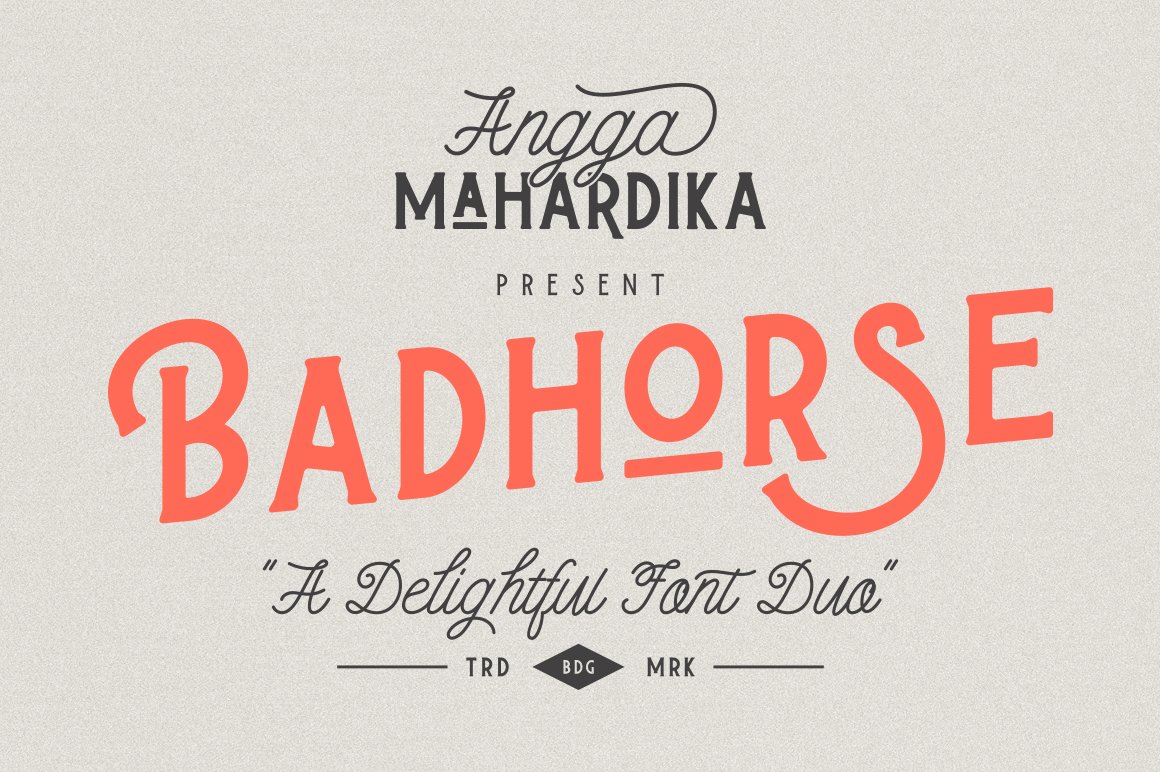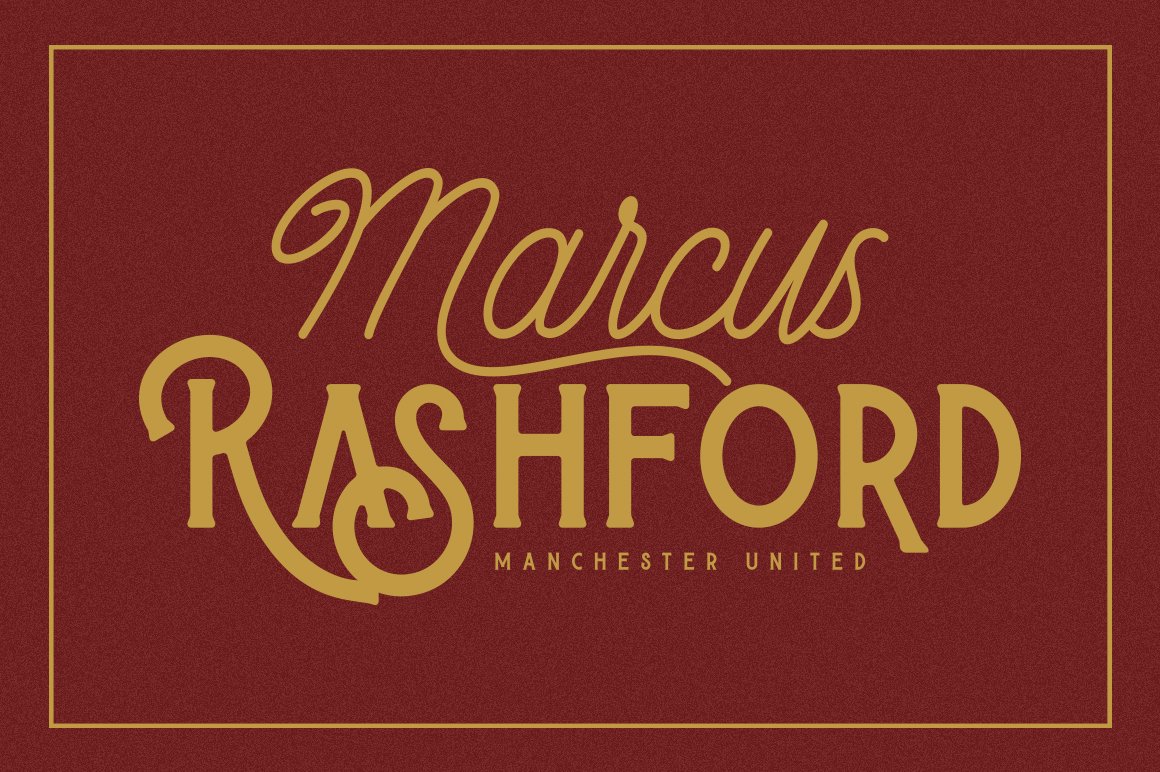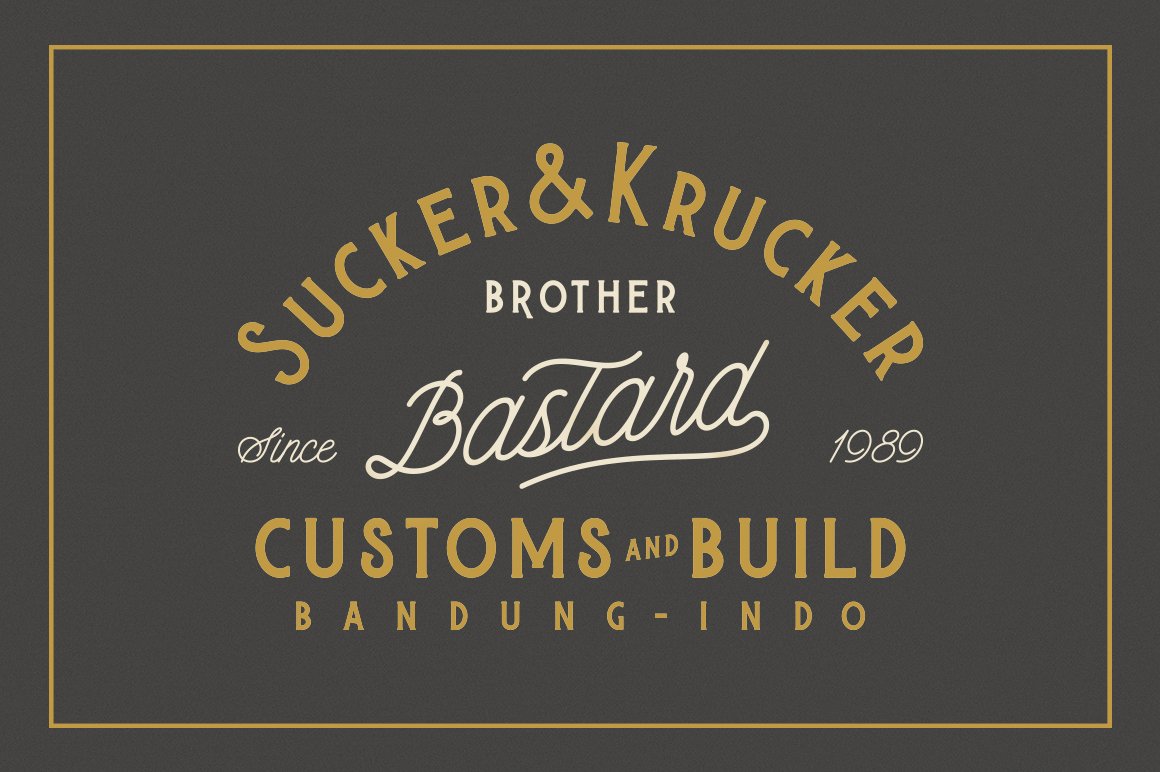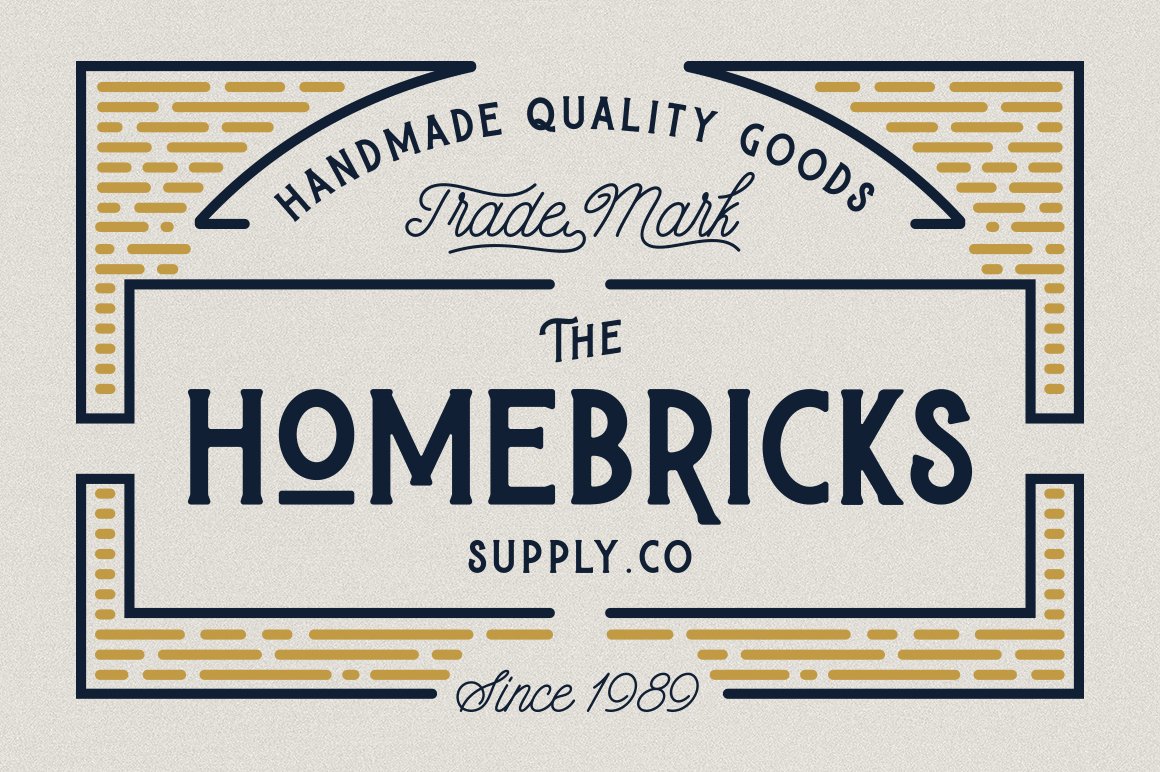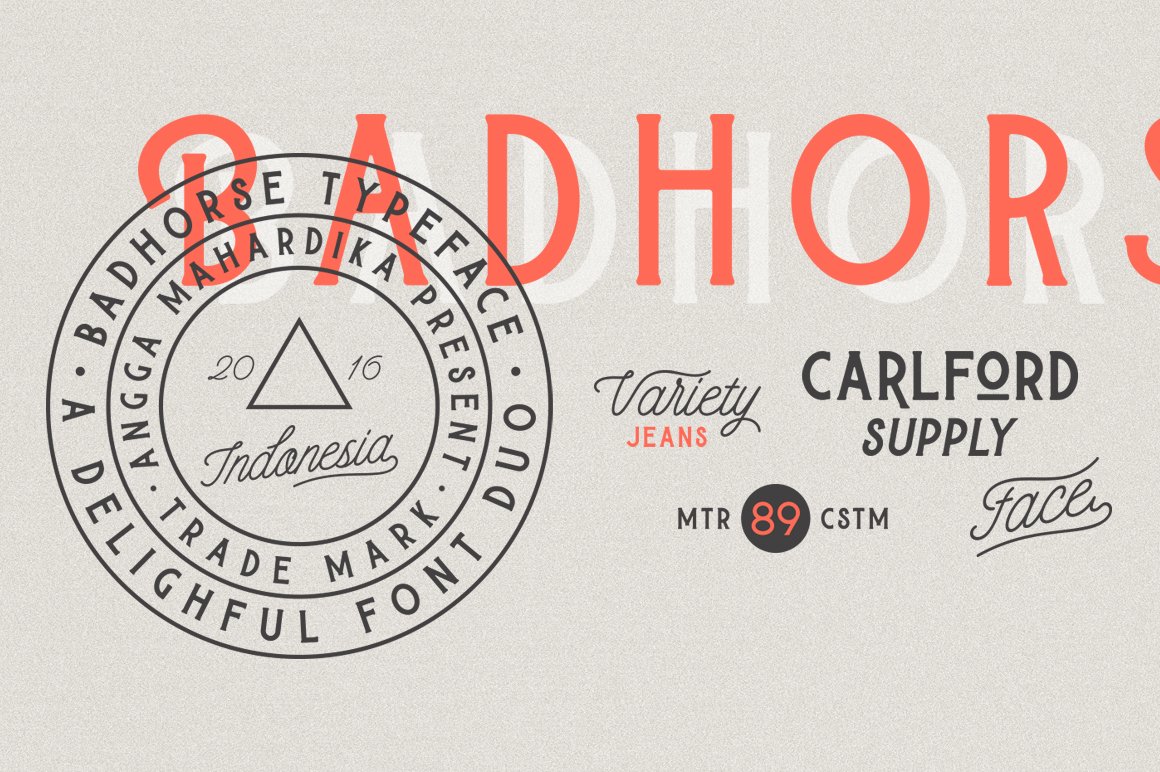
Badhorse
Badhorse is a new display font with cool characters. it's a delightful font duo, serif and script perfect for headlines, logotypes, signs, posters, greeting card, letterhead, t-shirt, and many more.
Features:
- Uppercase & Lowercase
- Stylistic Alternates (OpenType Features)
- Ligatures (OpenType Features)
- Symbols & Punctuation
- International Characters